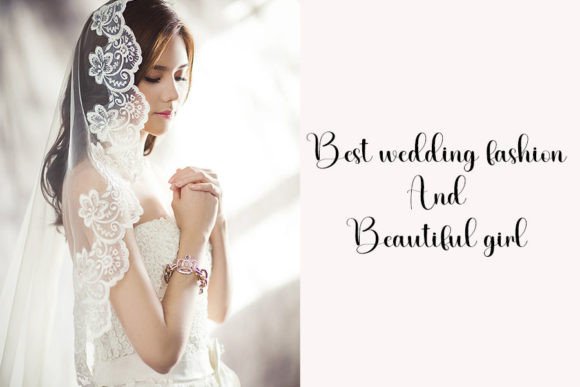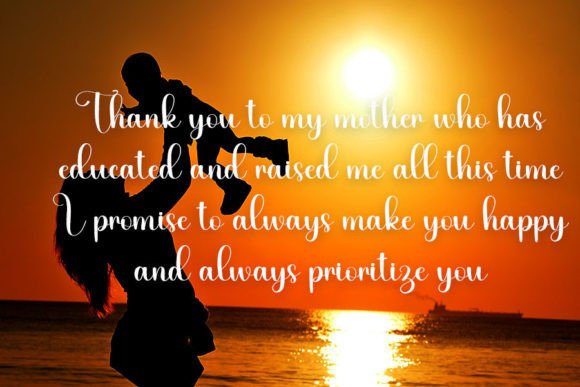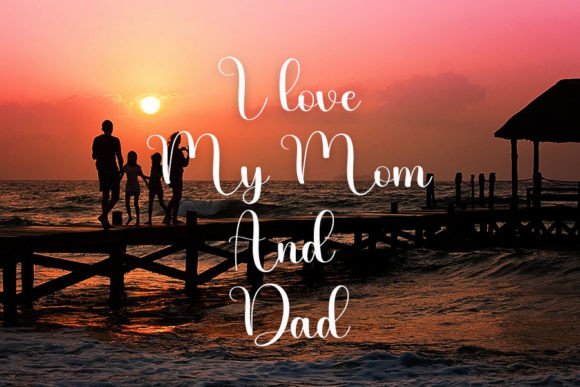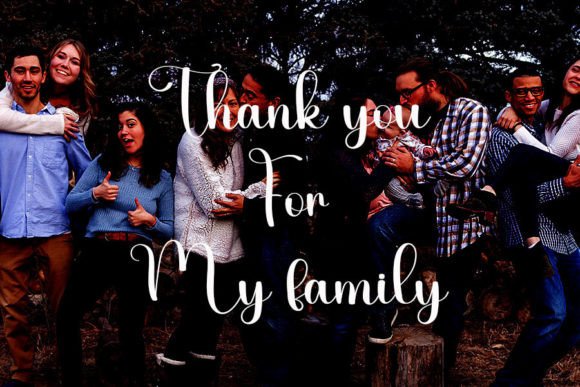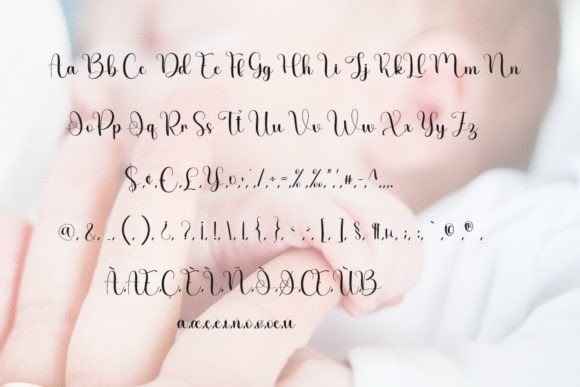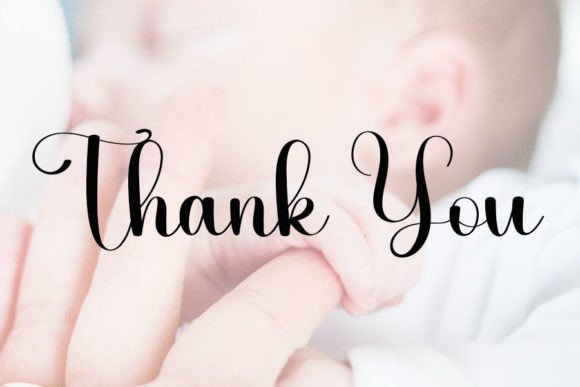
The Sweet Charm of Babe Font: A Designer’s Delight
I’ll never forget the time I was working on a luxury branding project for a high-end jewelry client. I had spent hours perfecting the logo design, but something was missing. The font I had chosen just wasn’t giving off the right vibe. It was then that I stumbled upon Babe Font, a sweet and beautiful handwritten font that completely transformed my design. In this article, I’ll share my love for Babe Font, its features, and how to make the most of it in your design projects.
An Honest Review of Babe Font
Babe Font has quickly become one of my go-to fonts for luxury designs. Here’s what I love about it:
- ✨ Sweet and elegant handwritten style: Babe Font features characters that dance along the baseline, giving it a playful yet sophisticated feel.
- ✅ Luxury spark: This font is perfect for adding a touch of high-end elegance to any design project.
- 💫 Versatile: Babe Font can be used for a wide range of designs, from branding and logos to invitations and packaging.
While Babe Font is a stunning font, it’s not without its quirks. Here are a few things to keep in mind:
- 🤔 Legibility at small sizes: Babe Font can be a bit tricky to read at very small sizes, so make sure to test it thoroughly before finalizing your design.
- ⚠️ Limited use in body text: While Babe Font is perfect for headings and titles, it may not be the best choice for body text due to its elegant, cursive nature.
A Practical Guide to Using Babe Font
The Designer Inspiration Behind Babe Font
Babe Font was inspired by the classic handwritten fonts of the past, with a modern twist. Its creator aimed to craft a font that would evoke a sense of luxury and elegance, while still being approachable and friendly. The result is a font that’s perfect for designers who want to add a touch of sophistication to their designs.
| Font Name | Babe Font |
| Author | Harlek studio |
Q: What type of designs is Babe Font best suited for?
A: Babe Font is perfect for luxury designs, such as branding, logos, invitations, and packaging.
Q: Can I use Babe Font for body text?
A: While Babe Font is elegant and beautiful, it may not be the best choice for body text due to its cursive nature. It’s best used for headings and titles.
Q: Is Babe Font available in different weights?
A: Yes, Babe Font comes in different weights, allowing you to experiment with different styles and combinations.